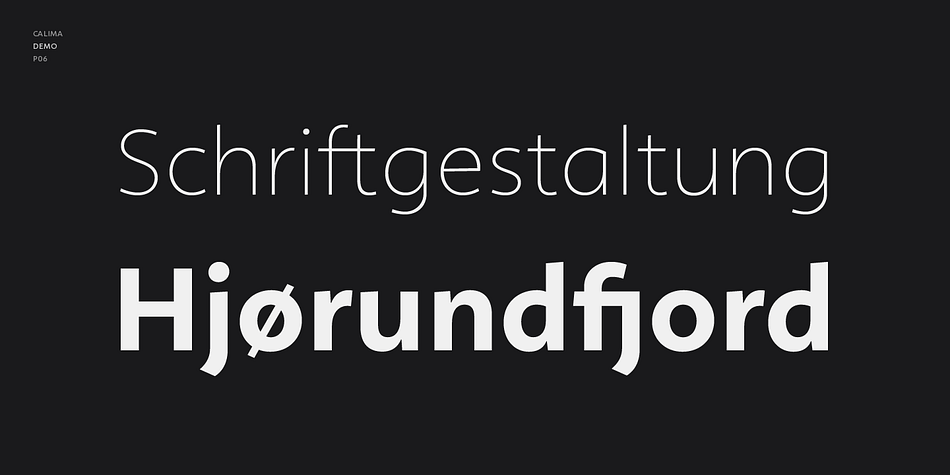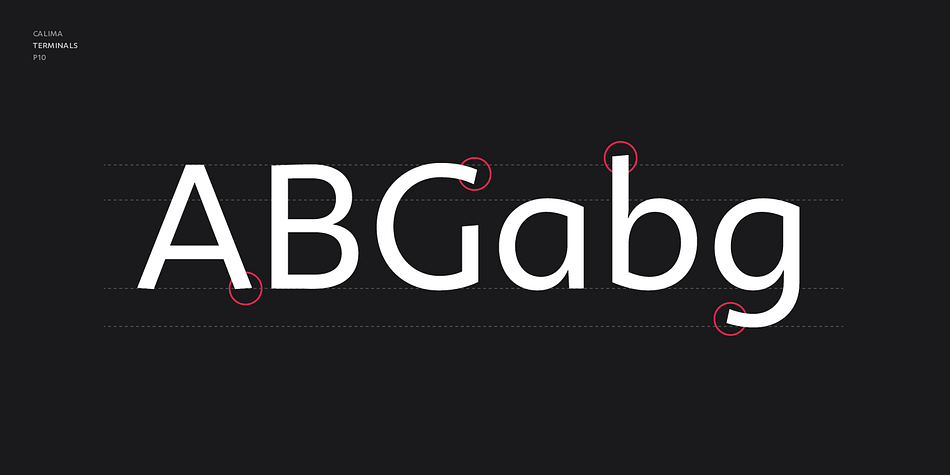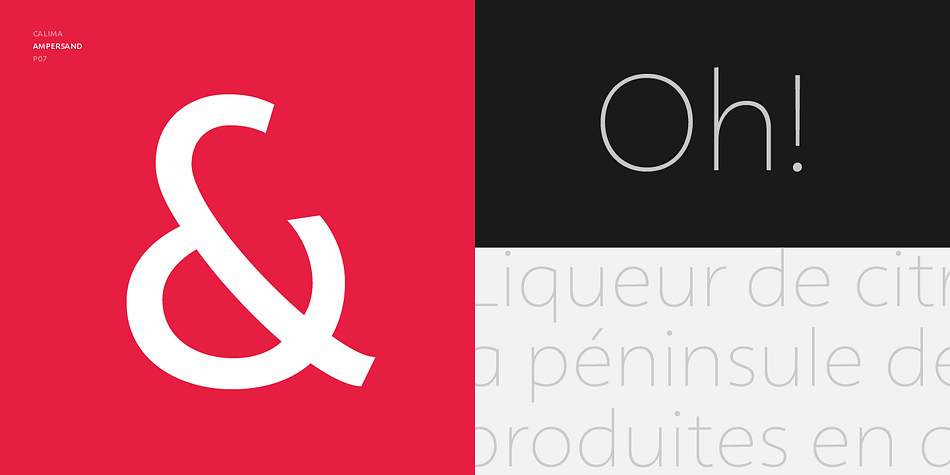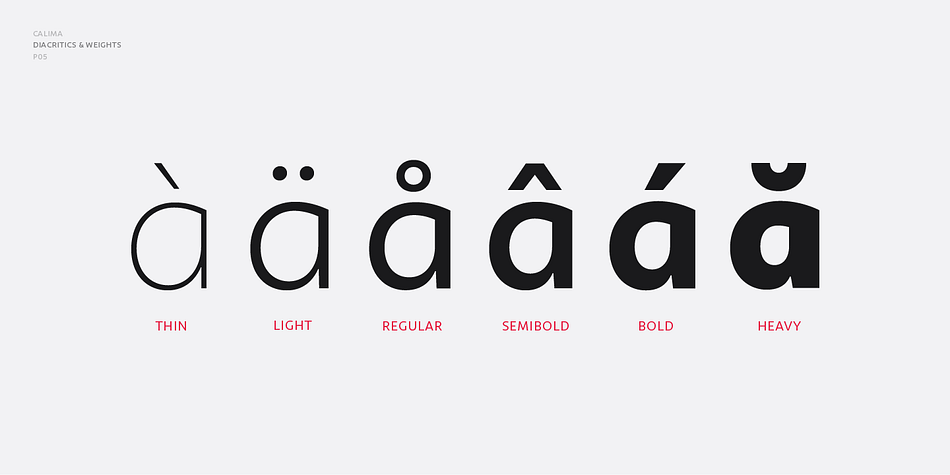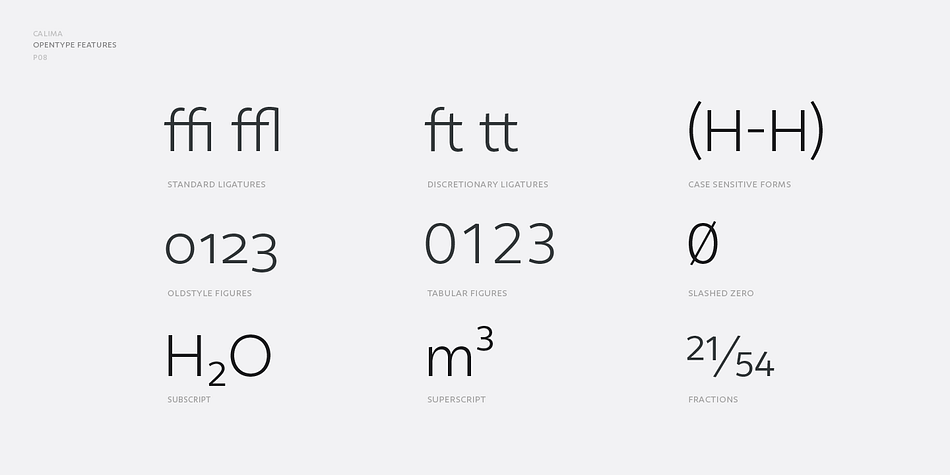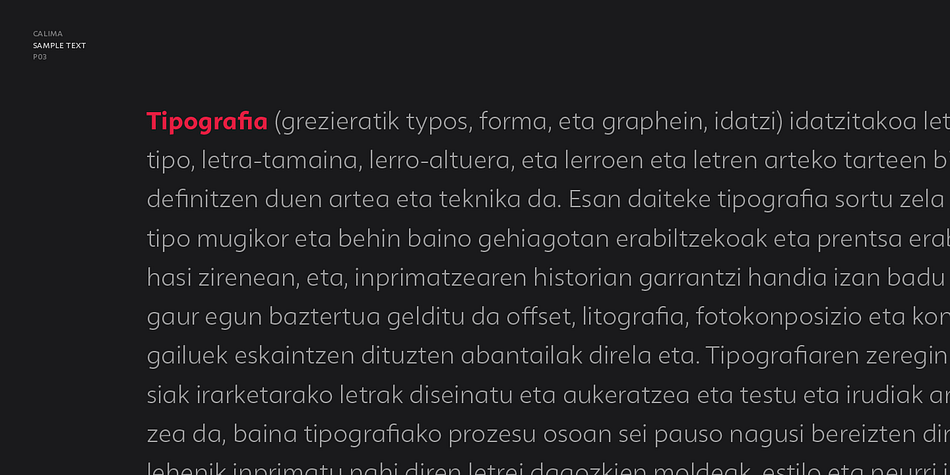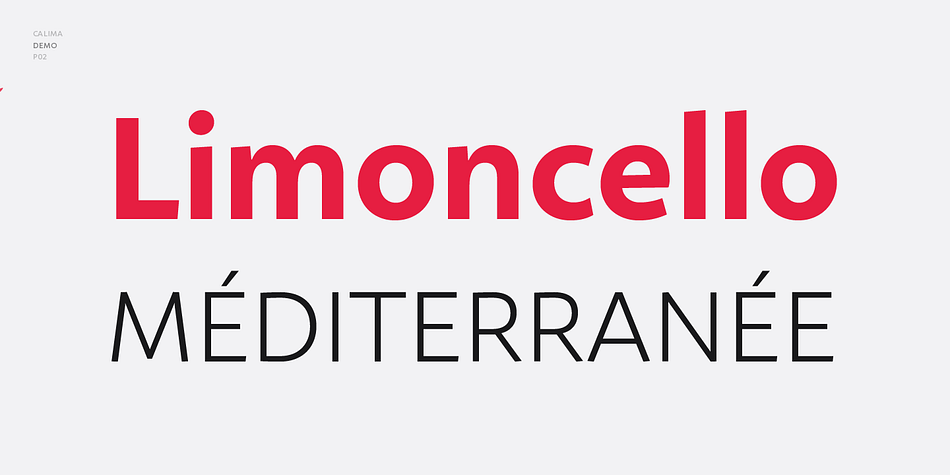
Designed by Joël Carrouché, Calima is a sans serif font family. This typeface has six styles and was published by JCfonts.
Calima is a humanist sans serif typeface available in six weights.
The idea behind this family was simply to try to bring the spontaneity of an italic to an upright roman typeface. The result is a fresh and dynamic sans with clean shapes, well suited for short texts and display use.
The fonts, available in Opentype format, include diacritics for most European languages and a variety of Opentype features : oldstyle and tabular figures, subscript and superscript, fractions, case-sensitive forms, localized forms and more.